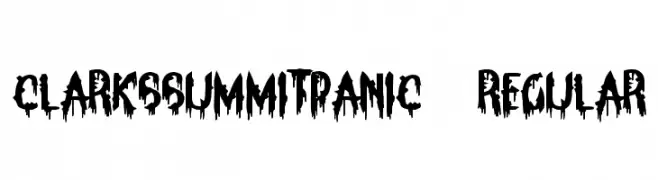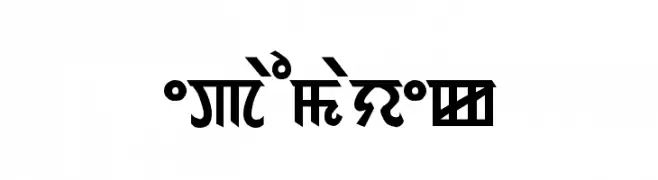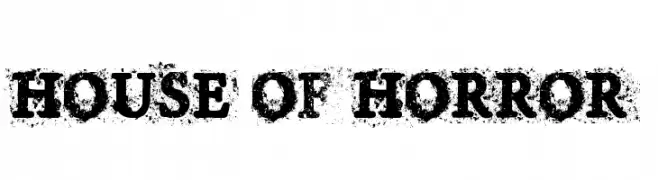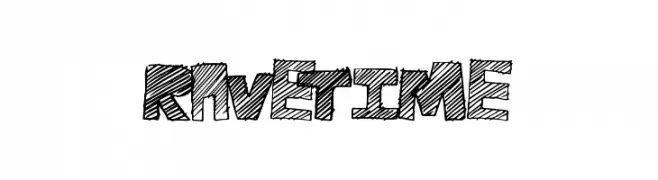
A farm-themed dingbat font with bold produce and livestock icons.
A bold, hand-drawn font with an energetic and playful style.
A playful, tentacle-inspired font with bold, dynamic characters.
A bold, distressed font with a rugged, textured appearance.
A bold, dripping font perfect for horror-themed designs.
A bold, hand-drawn font with textured, playful characters.
A bold, angular font with a gothic, geometric style.